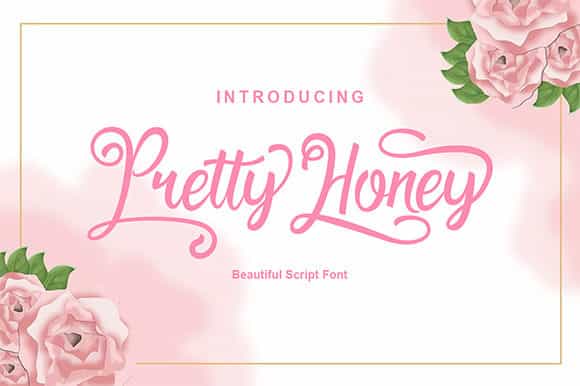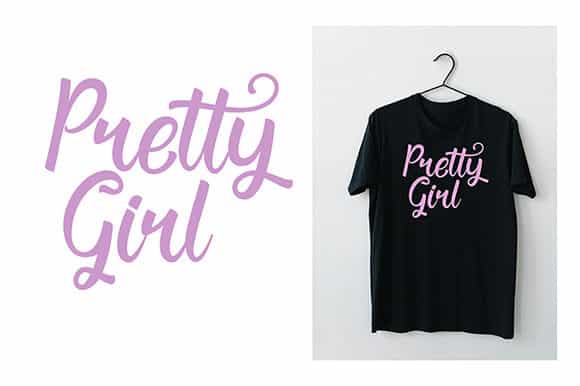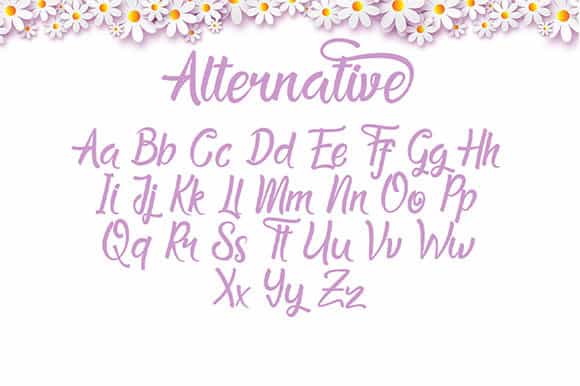
Pretty Honey is a cute, fluffy hand-lettered script font. The cheerful round characters are ideal for making fantastic DIY projects. Pretty Honey is full of PUA-encoded swashes which you can use to make a decorative touch in just a few seconds.